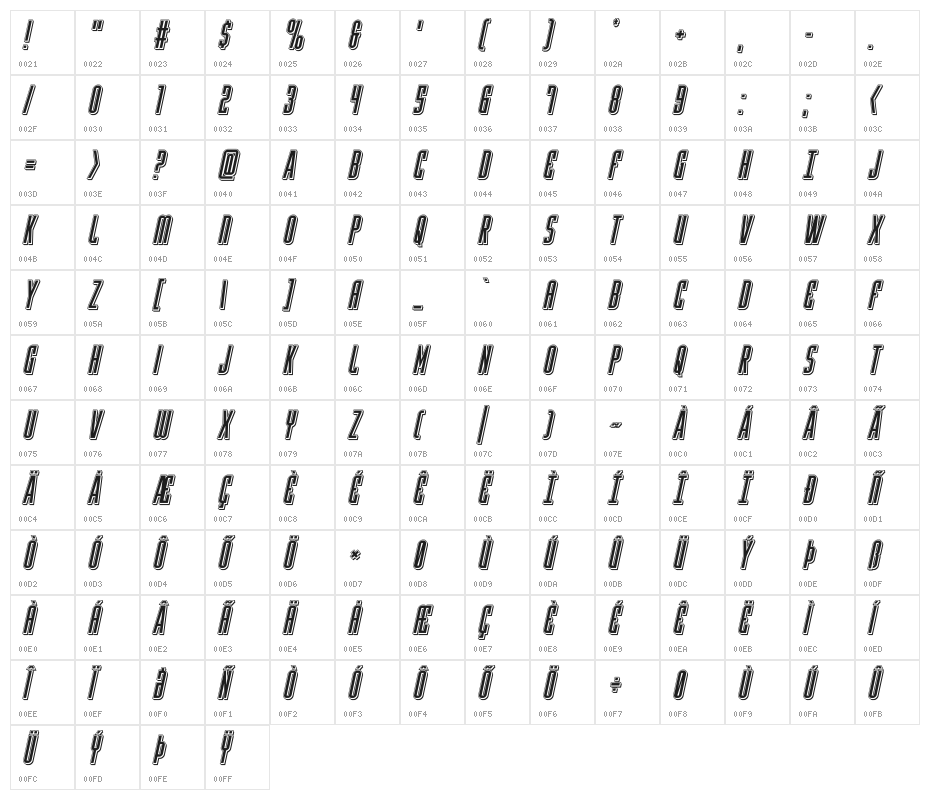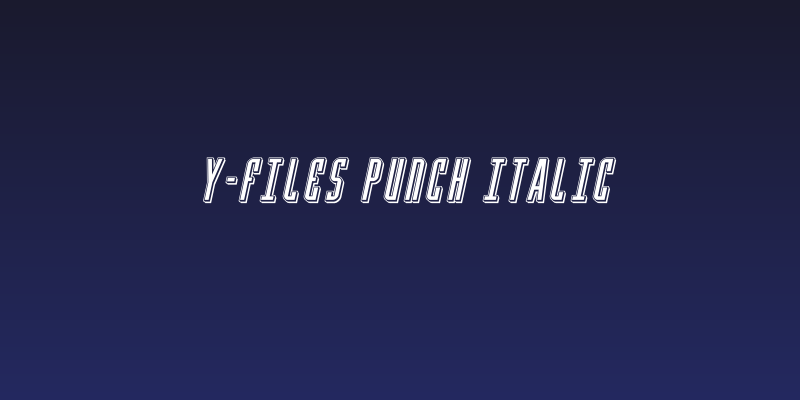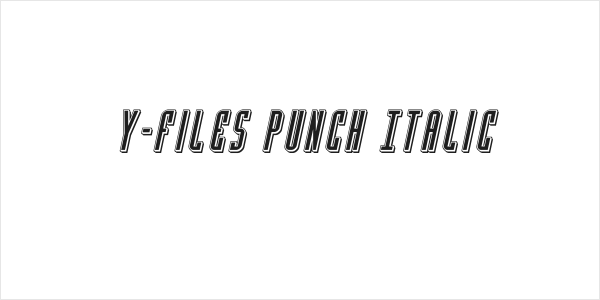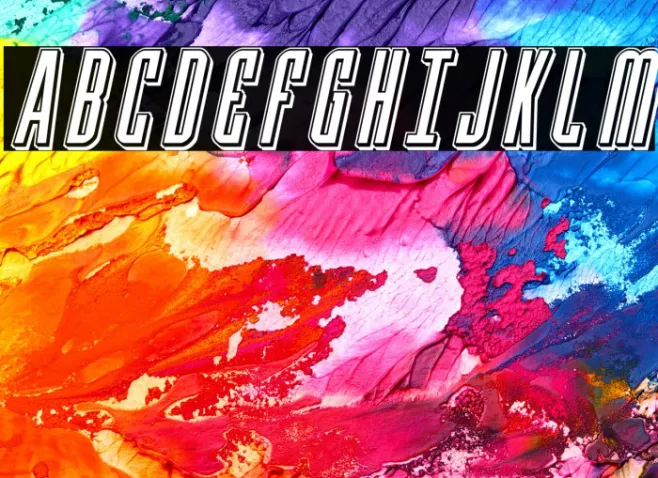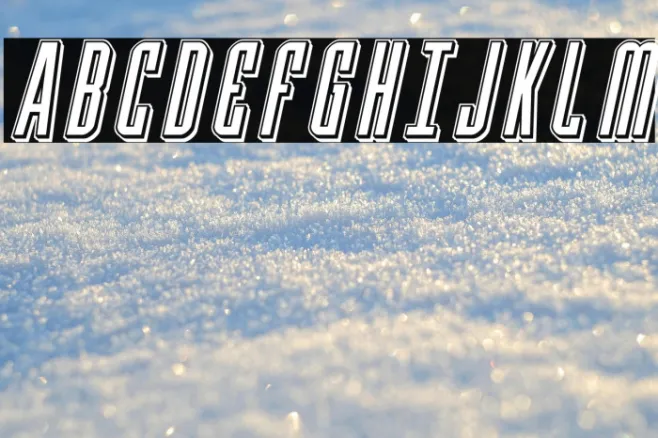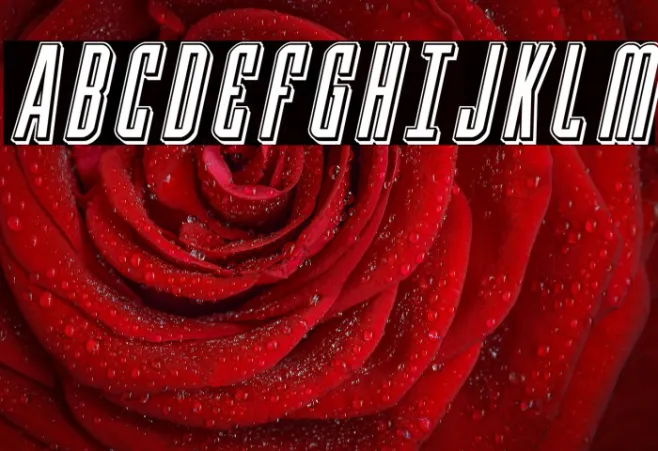
Y-Files Punch Italic Font
Y-Files Punch Italic Description
This font features a bold and dynamic style with a distinct italic slant, giving it a sense of motion and energy. The characters are outlined with a thick black border, enhancing their visibility and impact. The uppercase and lowercase letters maintain a consistent height, while the numbers and special characters are designed to match the overall aesthetic. The font's design is reminiscent of sports or action-themed typography, making it suitable for projects that require a strong and assertive presence.